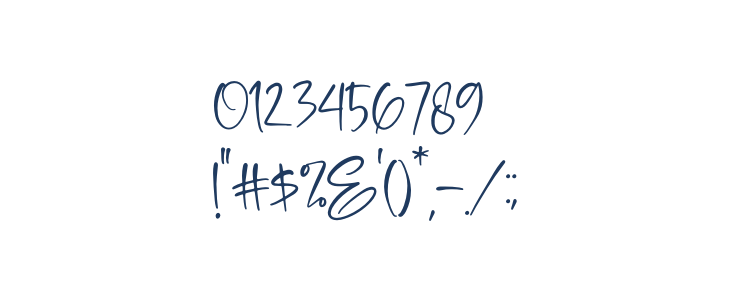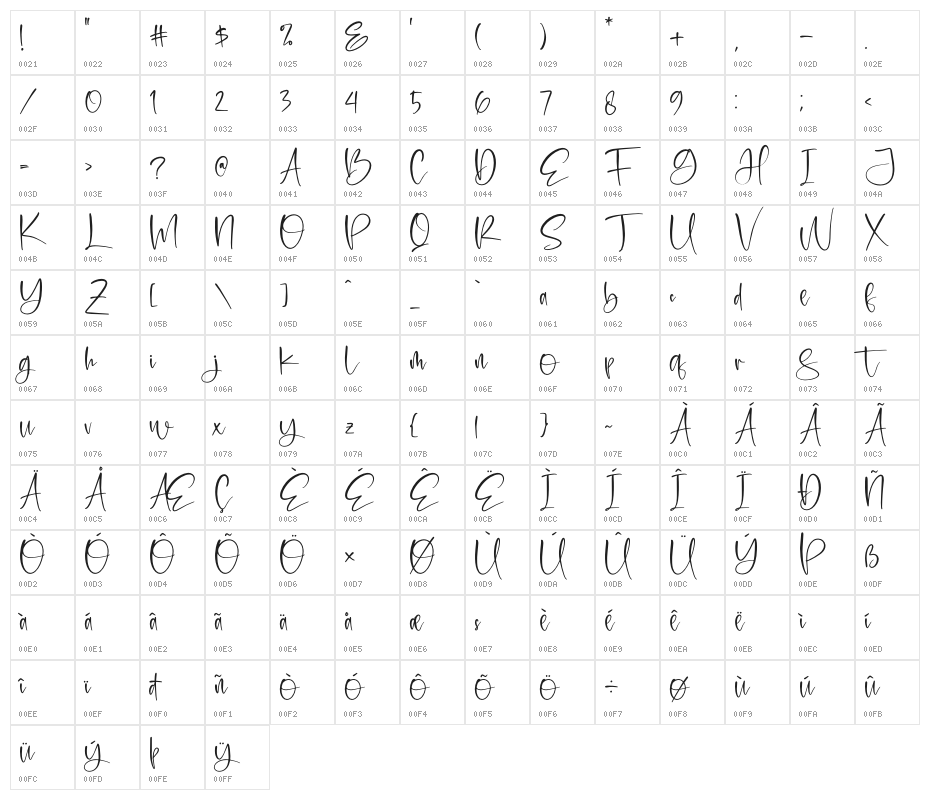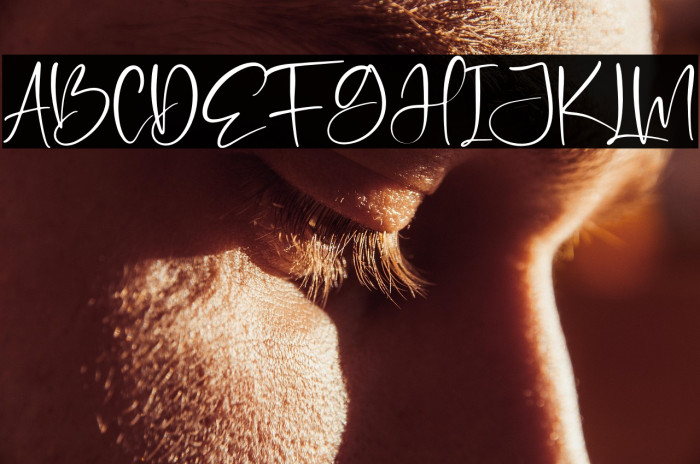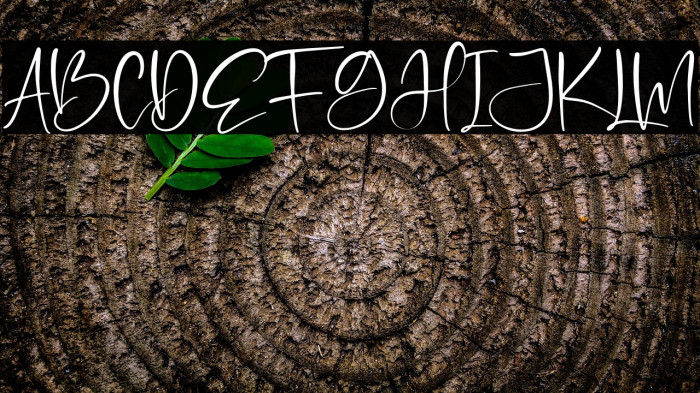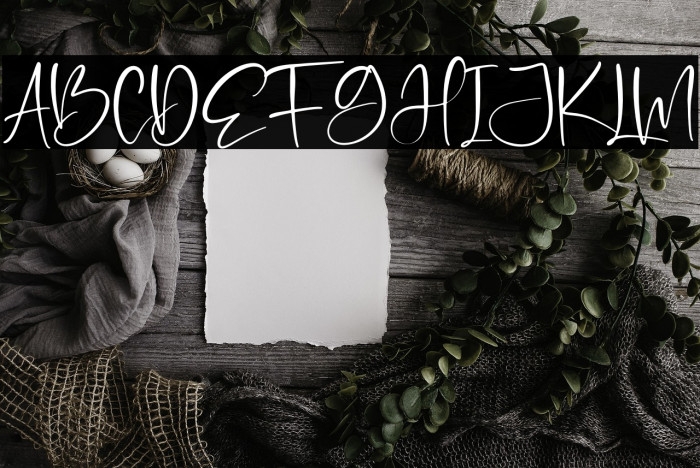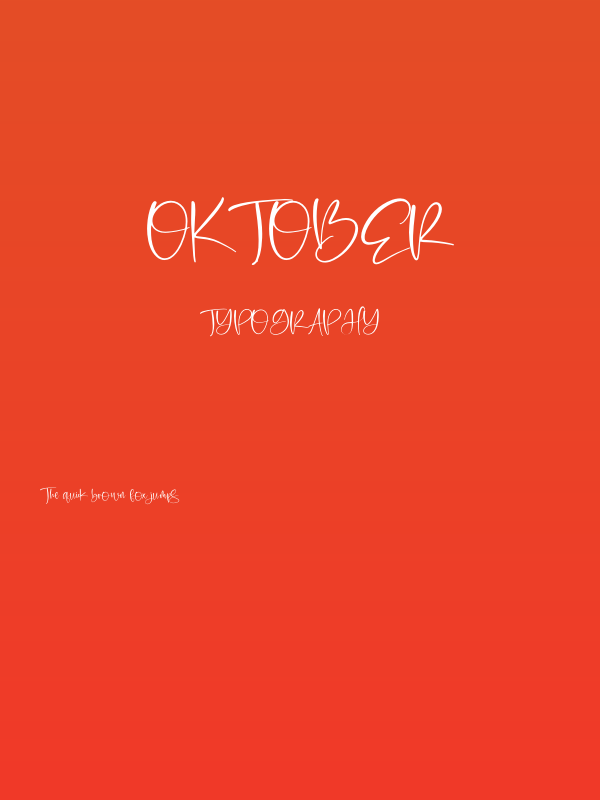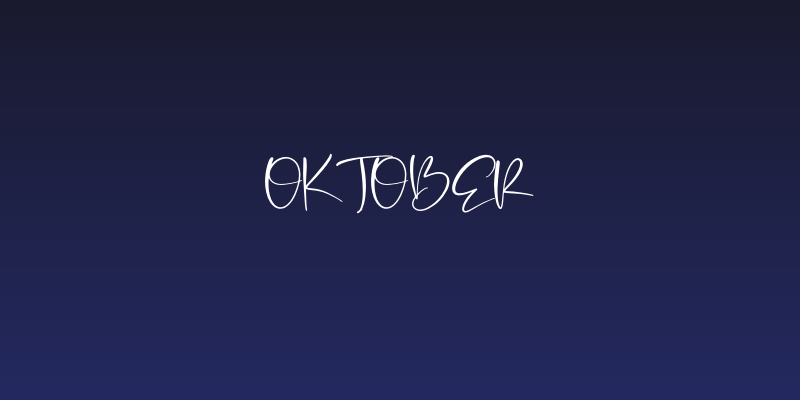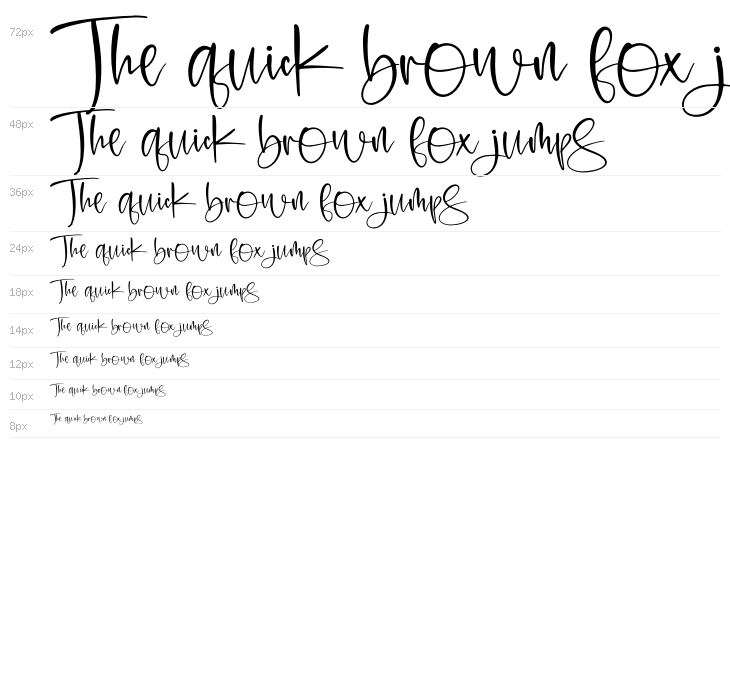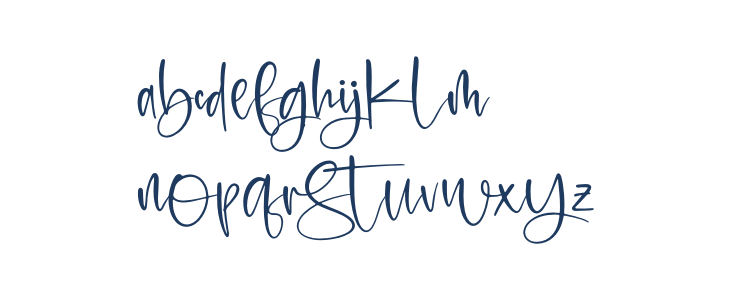
Oktober Font
Oktober Description
This font features a lively and expressive handwritten style, characterized by its fluid and dynamic letterforms. The strokes are smooth and flowing, with a playful yet elegant appearance. The uppercase and lowercase letters maintain a consistent style, with some letters featuring unique loops and swirls that add to the font's charm. The numerals and special characters are crafted with the same attention to detail, ensuring a cohesive look throughout. This font's whimsical nature makes it ideal for creative projects that require a personal touch.
| Use Case | Logos, Invitations, Social Media Graphics |
| Proposed Projects | Ideal for greeting cards, invitations, branding, and social media graphics where a personal, creative touch is desired. |